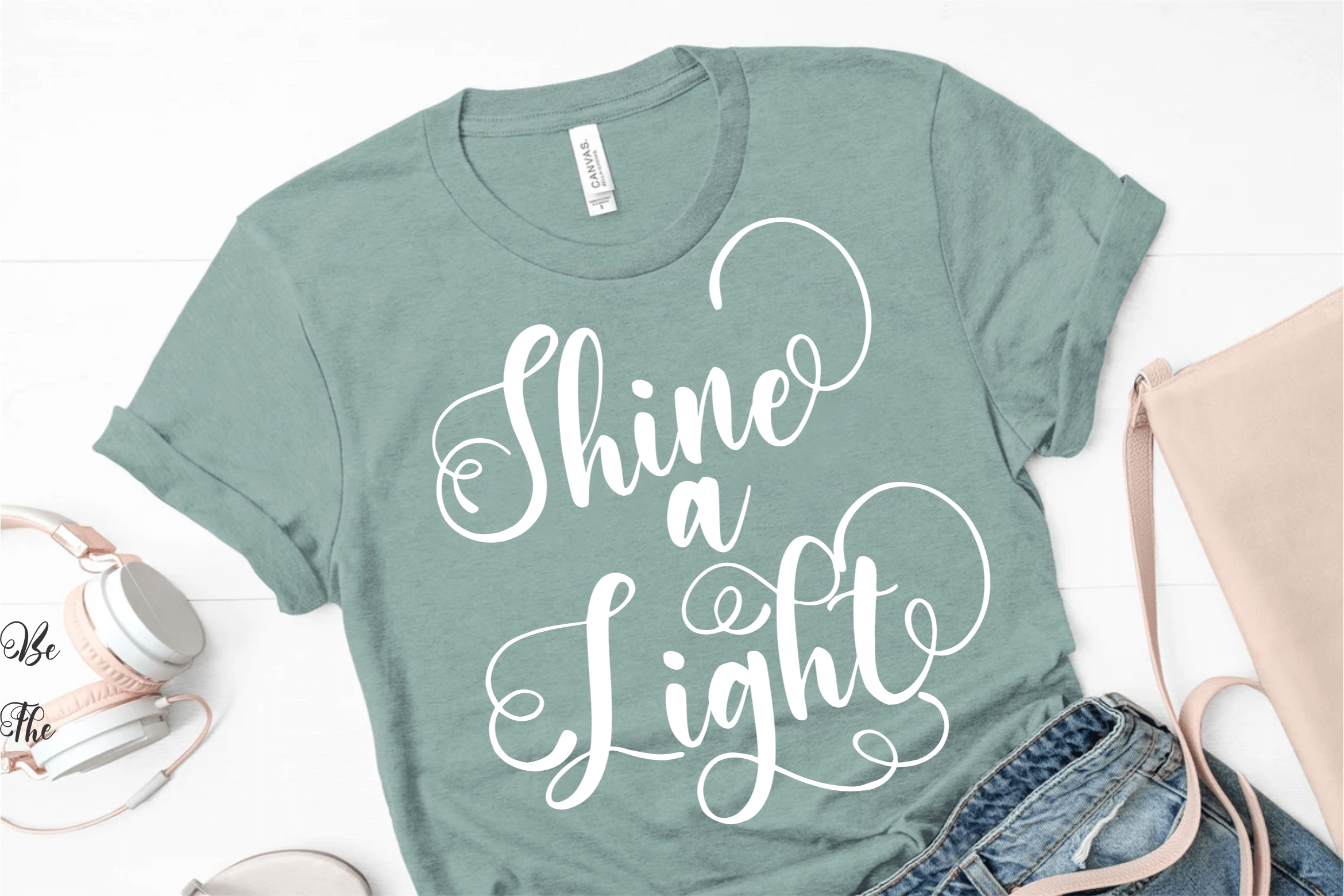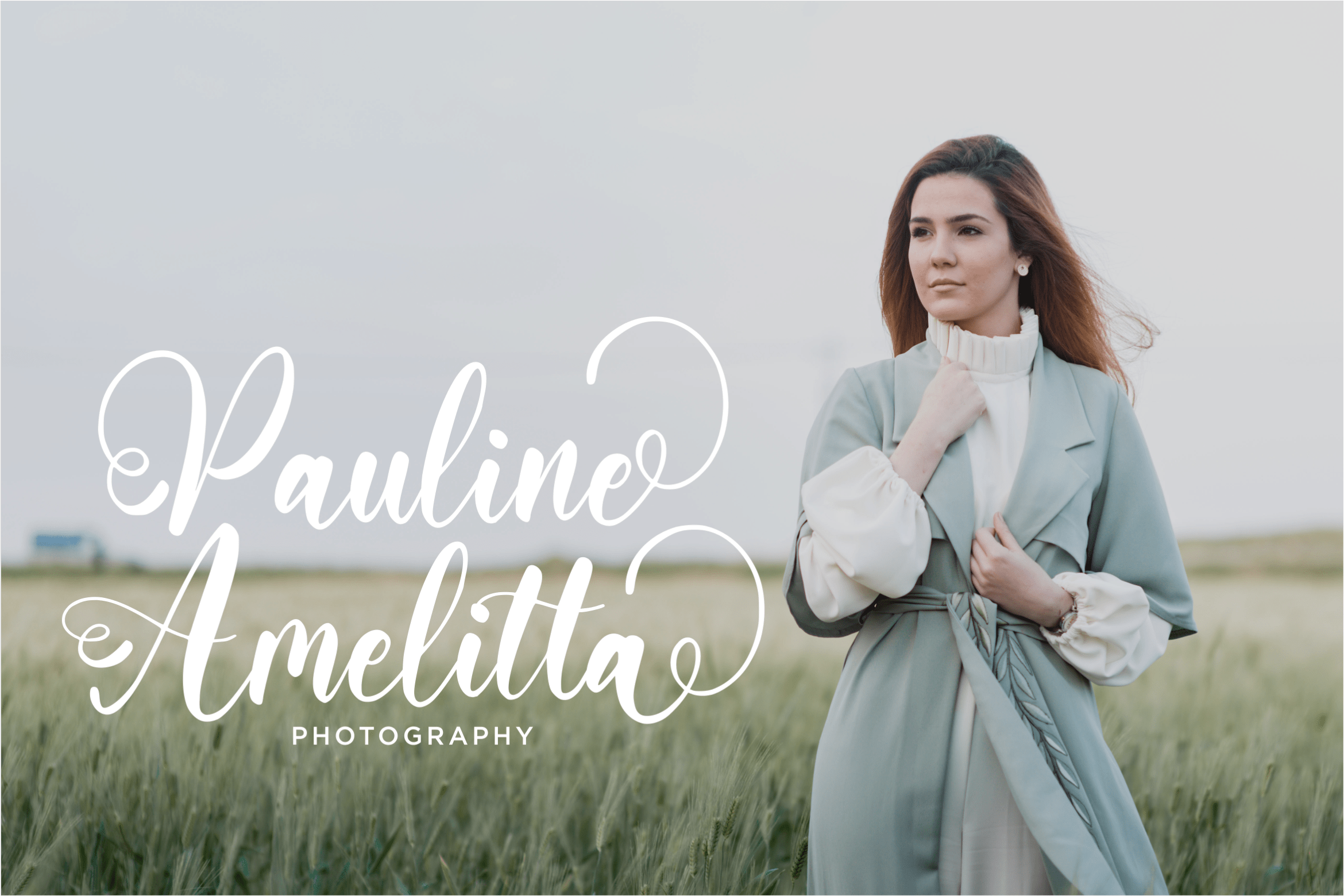
Snowmagine Script Font
It’s a Quirky Handwritten Font. Snowmagine is perfect for product packaging, branding project, magazines, social media, weddings, or just used to express words above the background.